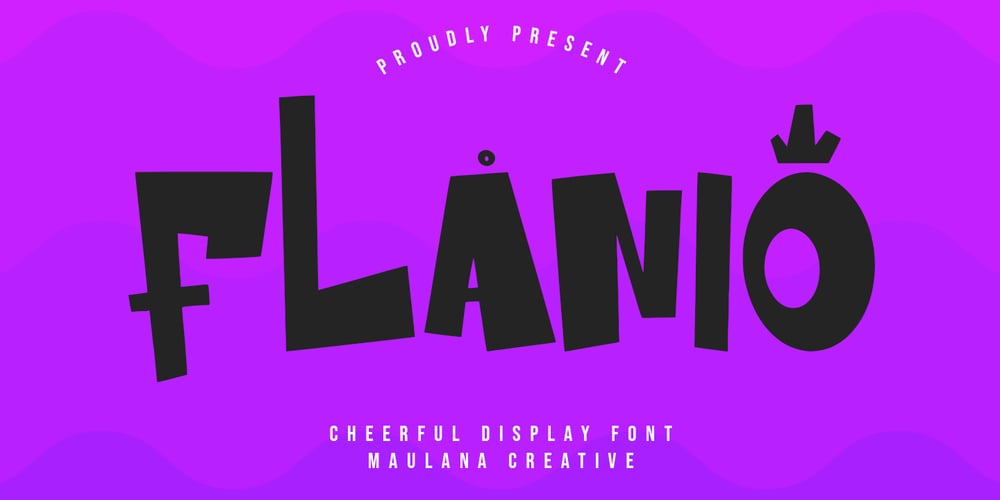
MC Flanio Font Family was designed by Gilang Maulana and published by Maulana Creative. MC Flanio contains 1 styles and family package options. Flanio is a modern cheerful sans display font. Medium stroke, fun character with a bit of ligatures and alternates. To give you an extra creative work. Flanio font support multilingual more than 100+ language. This font is good for logo design, Social media, Movie Titles, Books Titles, a short text even a long text letter and good for your secondary text font with script or serif. Make a stunning work with Flanio font.Cheers,Maulana Creative